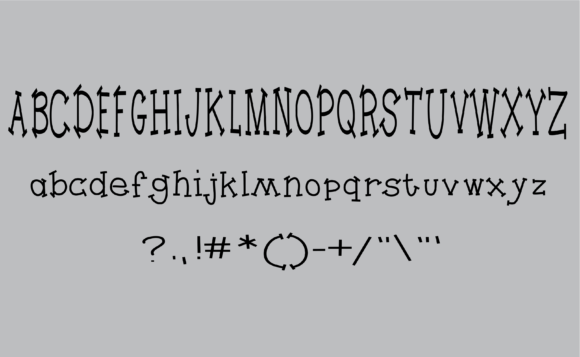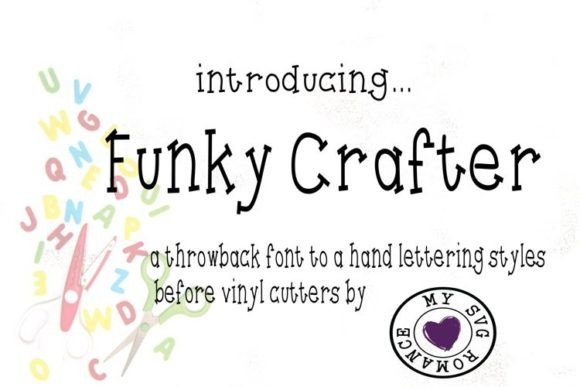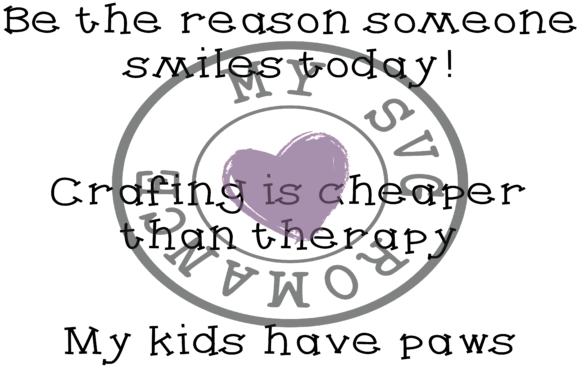
Introduction to Funky Crafter Font
Funky Crafter – A Throwback Font To Hand Lettering Before Vinyl Cutters Do you remember hand lettering projects before you owned a Cricut or Silhouette.
This font is based on one of the styles that I used on my painted wood signs .
Funky Crafter Font offers exceptional quality and versatility, making it a valuable addition to your design toolkit. Whether you’re creating for personal projects or commercial use, Funky Crafter Font delivers professional results.